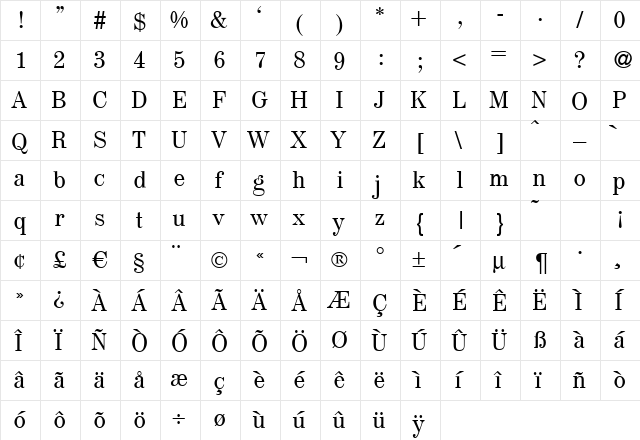
MapType Regular
Regular · SoftMaker Software GmbH SoftMaker Software GmbH ·
Foundry SoftMaker Software GmbH
DesignerSoftMaker Software GmbH
Design Context for MapType Typeface
MapType takes a measured approach to typography — its balanced proportions and neutral character make it a reliable workhorse for both digital and print work.